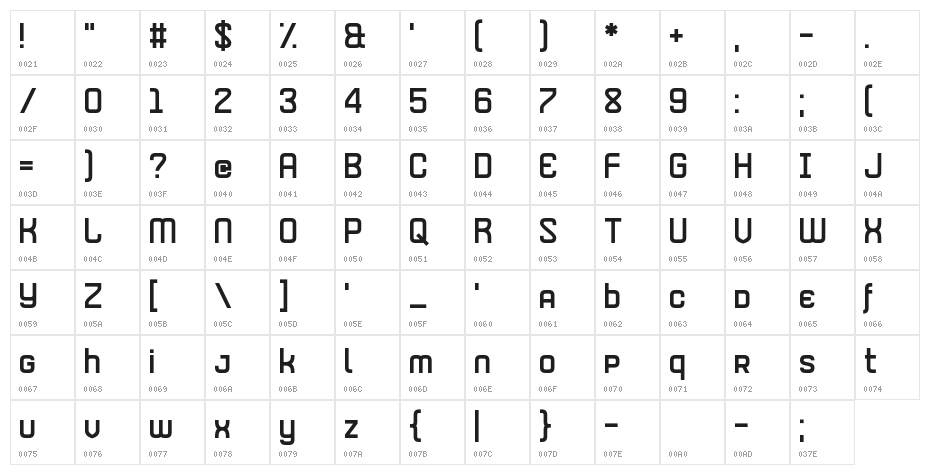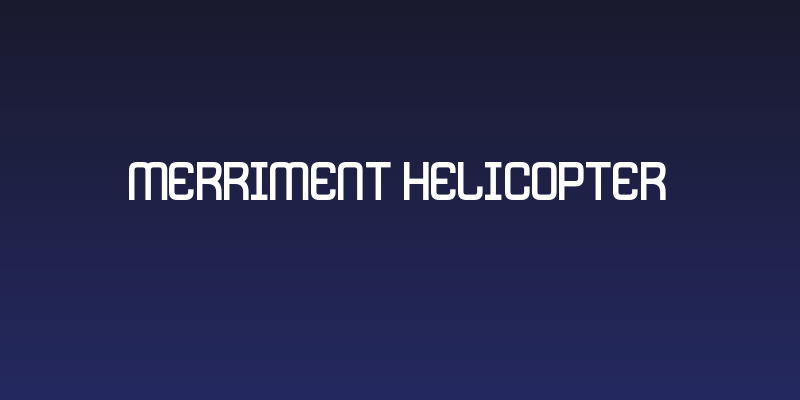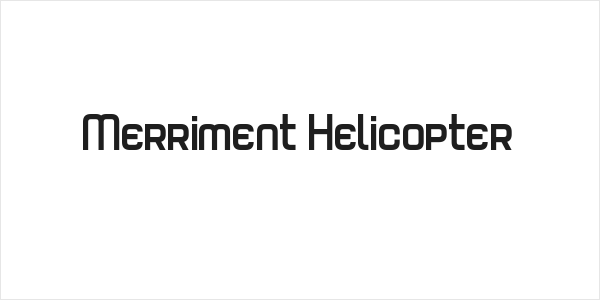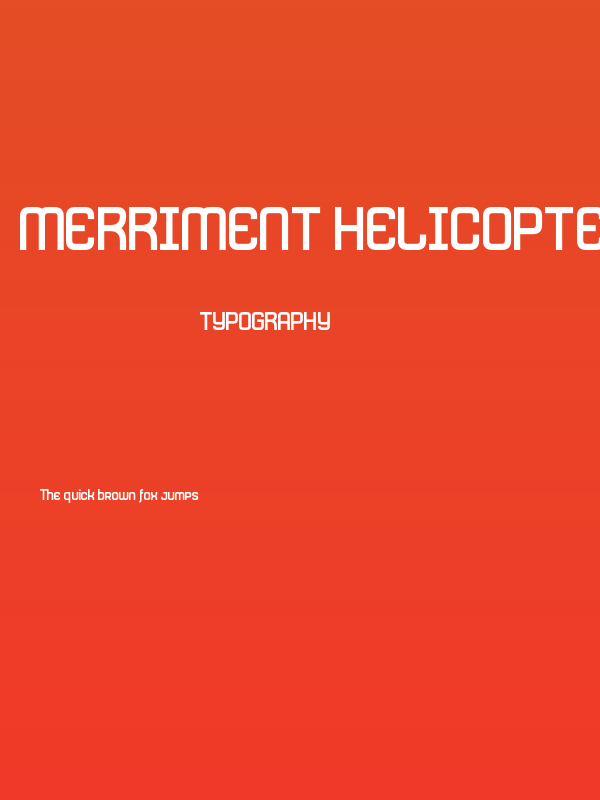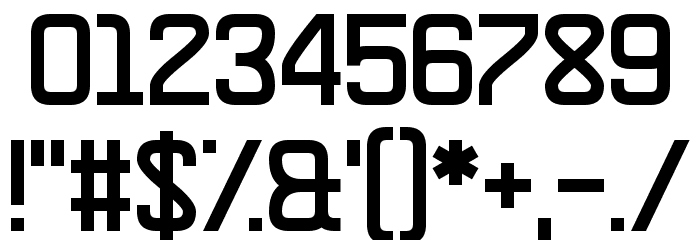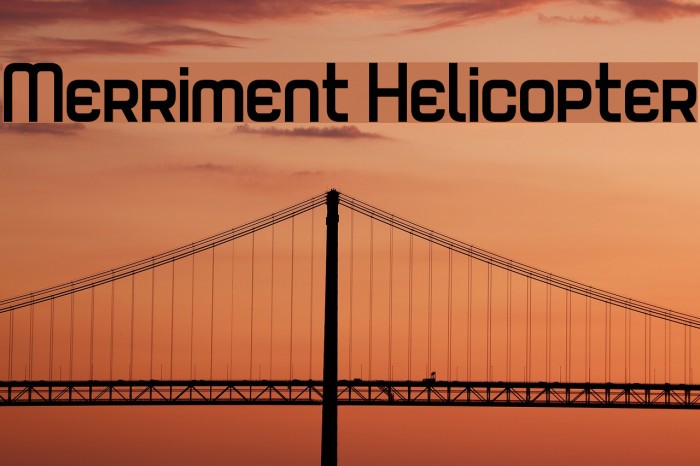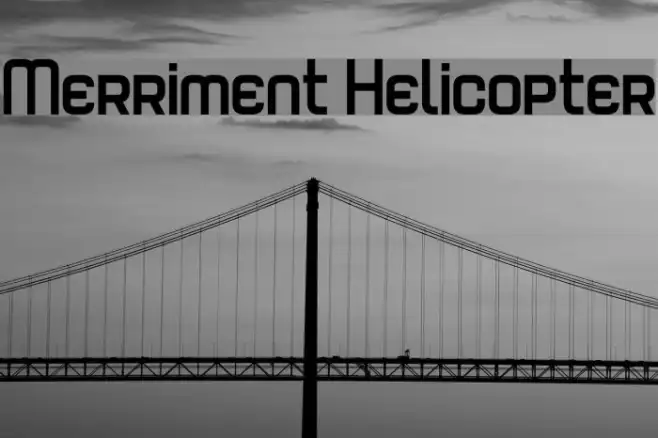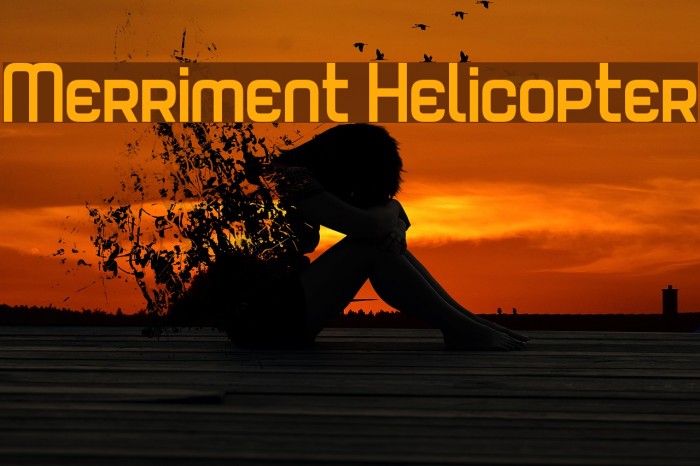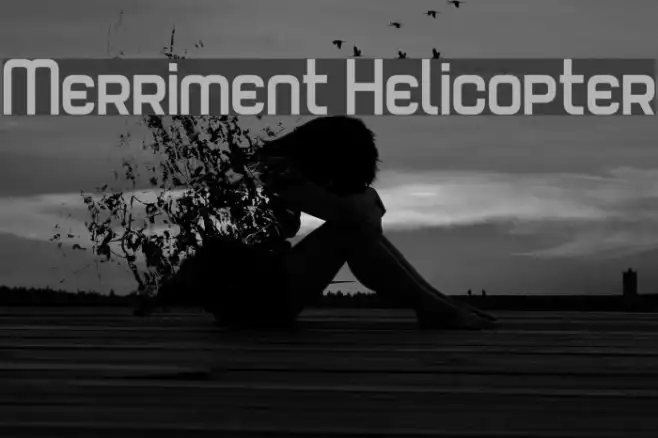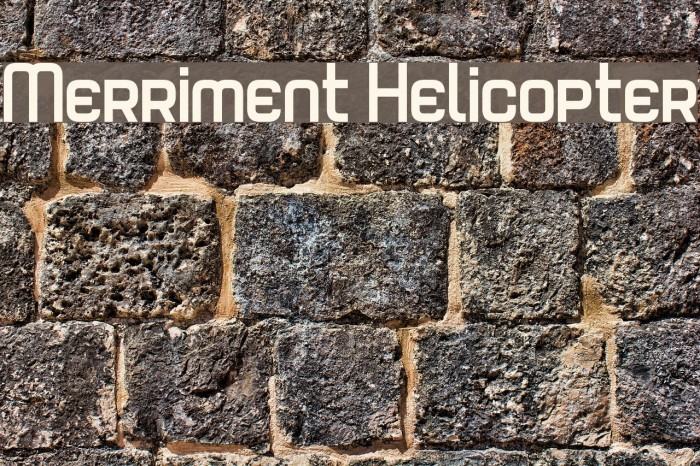
Merriment Helicopter Font
Merriment Helicopter Description
This font features a modern and geometric design with rounded edges, giving it a sleek and contemporary appearance. The characters are uniform in height, contributing to a clean and organized look. The uppercase and lowercase letters maintain a consistent style, with a slight variation in width that adds subtle interest. The numerals are bold and easily legible, making them suitable for various applications. Special characters are well-integrated, maintaining the overall aesthetic of the font. The design is versatile, making it ideal for both digital and print media.